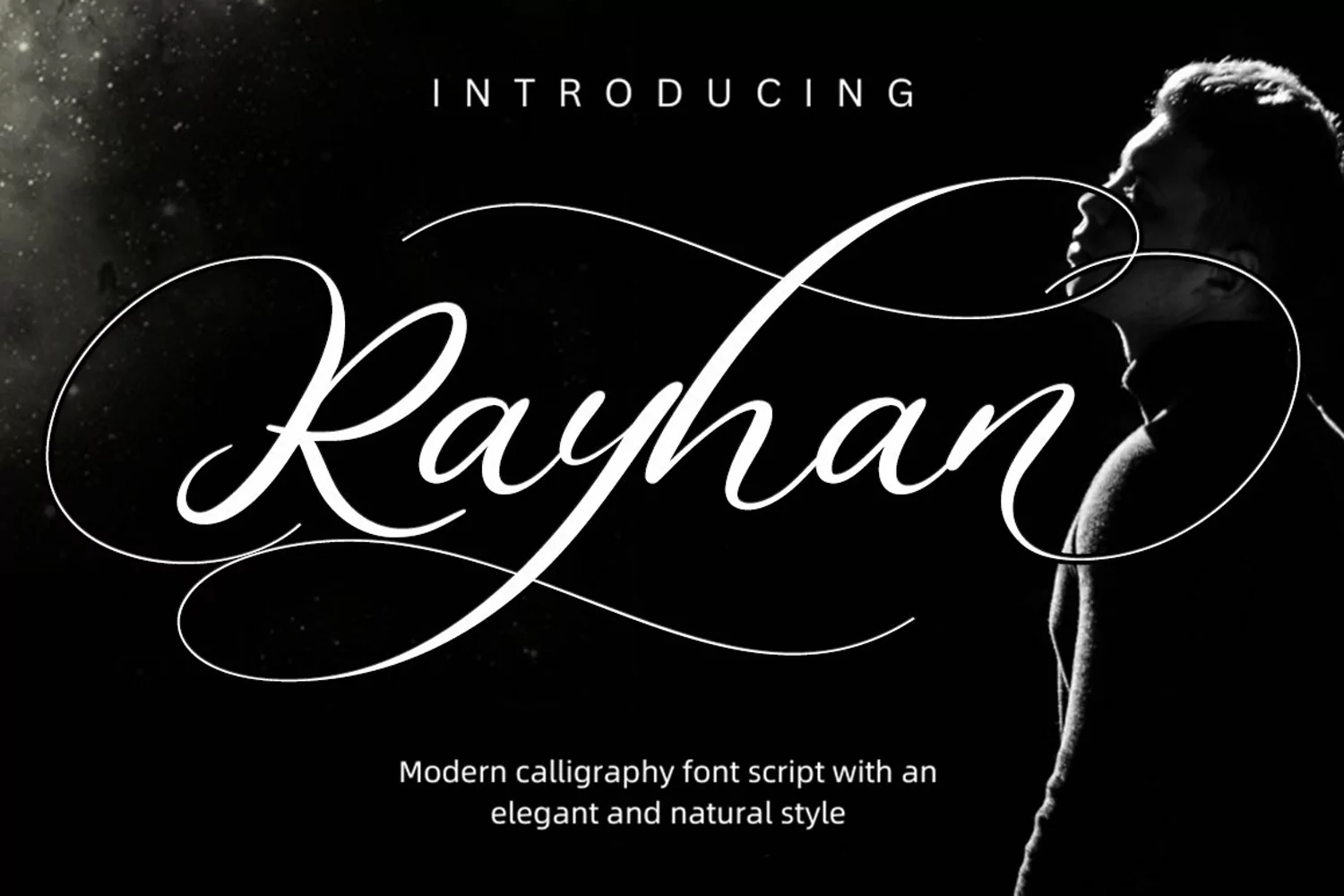
Simple stylish
Rayhan Script is a modern calligraphy design, including Regular. This font is casual and beautiful with swash. Can be used for various purposes. such as logos, product packaging, wedding invitations, branding, headlines, signage, labels, signatures, book covers, posters, quotes, and more.